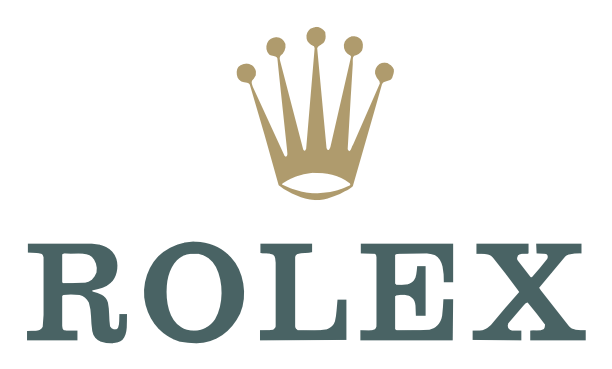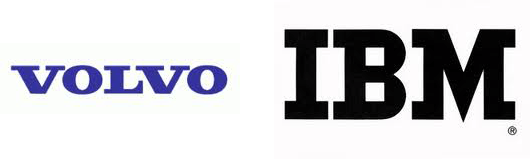
Serif Fonts Logo. It includes 8 different weights with 450 glyphs. I think one of the reasons why serif fonts typically aren’t used in logos is because they tend to have a small to medium weight, and a logo.
1001 free fonts offers the best selection of serif fonts for windows and macintosh. Best sans serif fonts for designers. Popular, powerful, pleasing to the eye, there is a reason brands from microsoft to jeep have used helvetica, or some variant of it, in their logo and branding for years.
Brands That Use Serifs Are Perceived As Traditional, Established, And Trustworthy To Viewers.
Spinwerad is a great example of a clean, tasteful serif font with character. A serif font is a font with small strokes or extensions at the end of its longer strokes. Famous luxury brands like tiffany, gucci, rolex, prada, dior, hermes or cartier all use serif fonts in their logos.
Using an elegant serif font will add a bit of class, style and sophistication to your logo design. The small styling or unique line sketched at the end of the text is an indication of a serif font. By the league of moveable type.
The font works well for. A slab serif font, when compared to other serifs, has less contrast overall, which adds to the heavy, dramatic appearance of the font. It includes 8 different weights with 450 glyphs.
Serifs have their roots in ancient roman square capitals, and became widely used with the advent of the printing press. The best sans serif fonts for logos exude a friendly and modern air. A slab serif font is a serif font that has had the serif blocked off, creating a strong, sturdy appearance instead of the more refined look that a traditional serif would have.
The Most Popular Serif Fonts Are Times New Roman, Georgia, Garamond, And Didot (To Name A Few).
Create your logo design based on best fonts, by using our easy to use logo and font tool, logo, font, logo font, font logo. Using a clean and elegant serif font in your logo design not only makes it sophisticated, but can also add a bit of exciting flair to your design. If you’re looking for a multipurpose serif font that you can use to design everything from creative logos to elegant business cards, this is the perfect font for you.